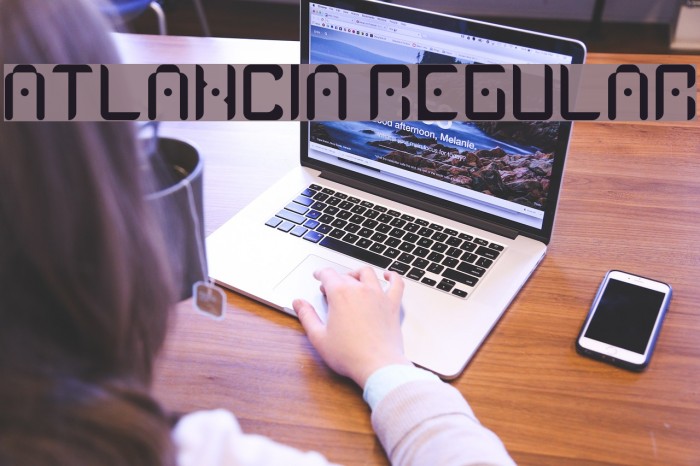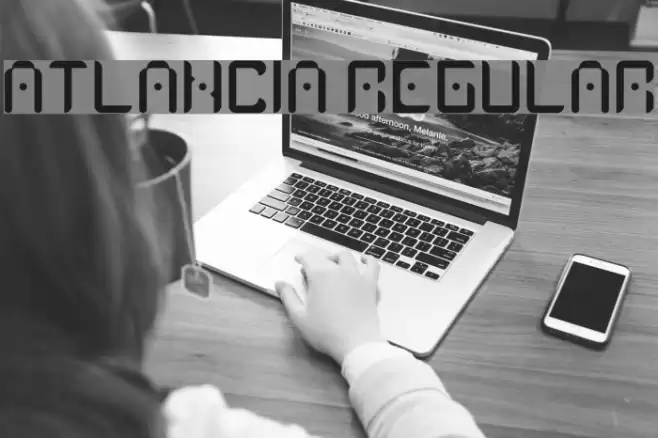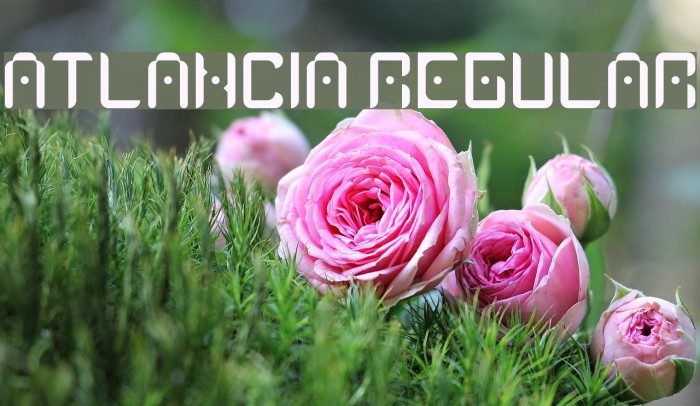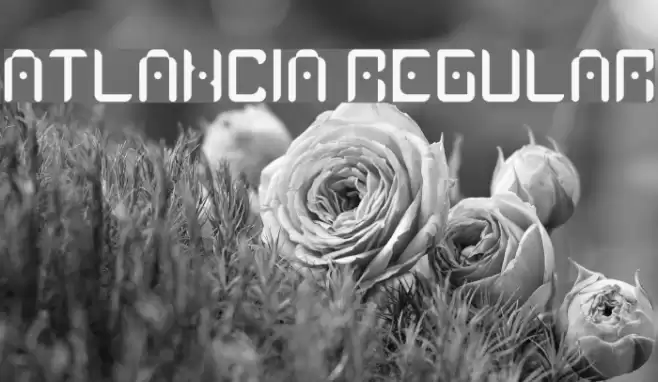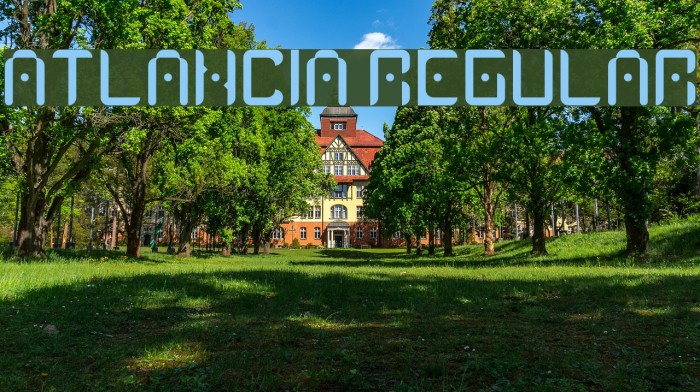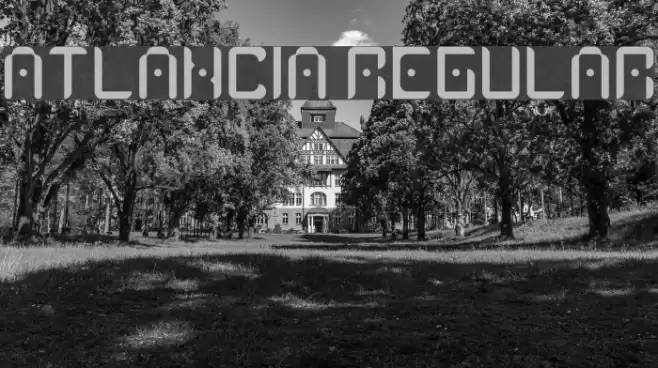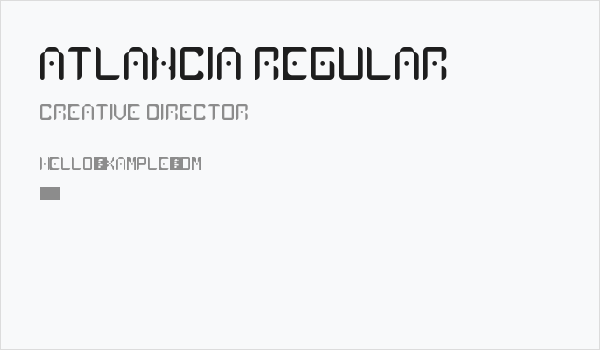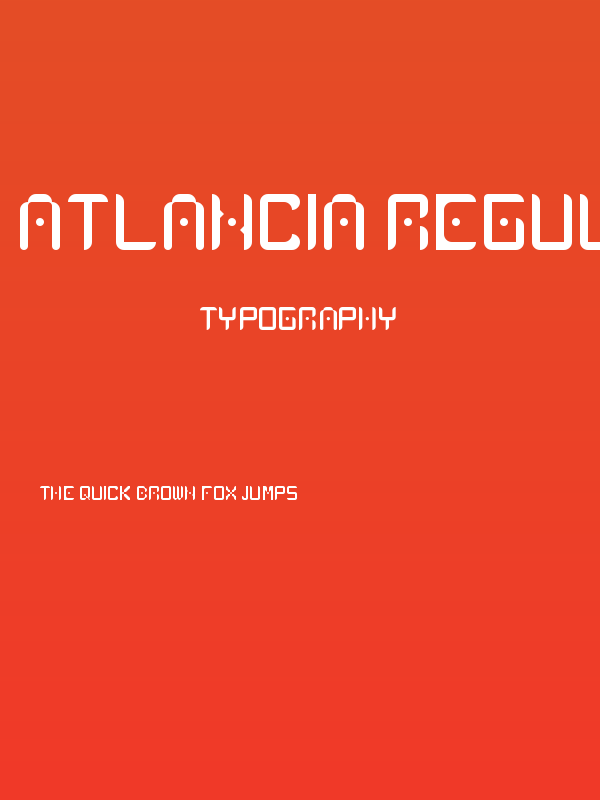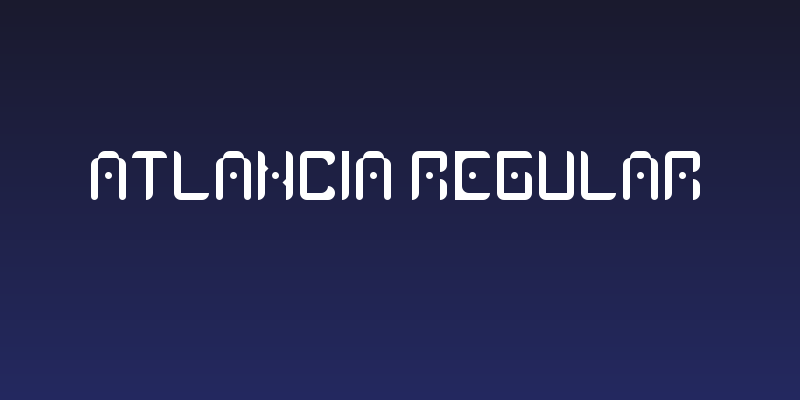
Atlancia Regular Font
Atlancia Regular Description
This font features a futuristic and geometric design, characterized by its bold and angular letterforms. Each character is constructed with a combination of straight lines and sharp angles, giving it a distinct, modern appearance. The font includes uppercase letters, with a consistent height and width, creating a uniform look across all characters. The design incorporates unique cutouts and negative spaces within the letters, adding an element of intrigue and complexity. This font is ideal for projects that require a contemporary and edgy aesthetic, making it suitable for technology-related branding, sci-fi themes, and modern digital interfaces.
| Proposed Projects | Ideal for technology branding, sci-fi themes, digital interfaces, and modern posters. |